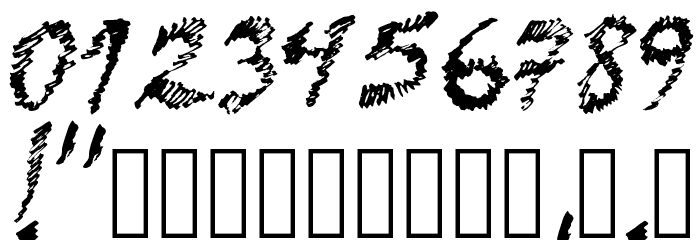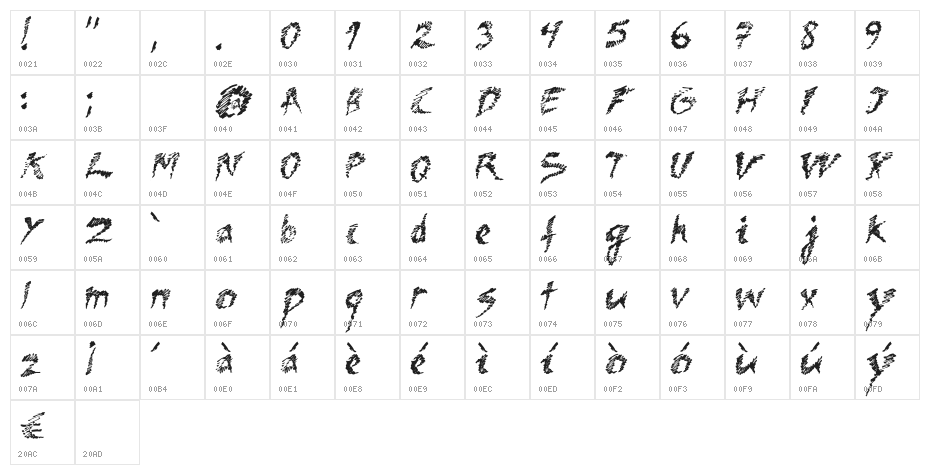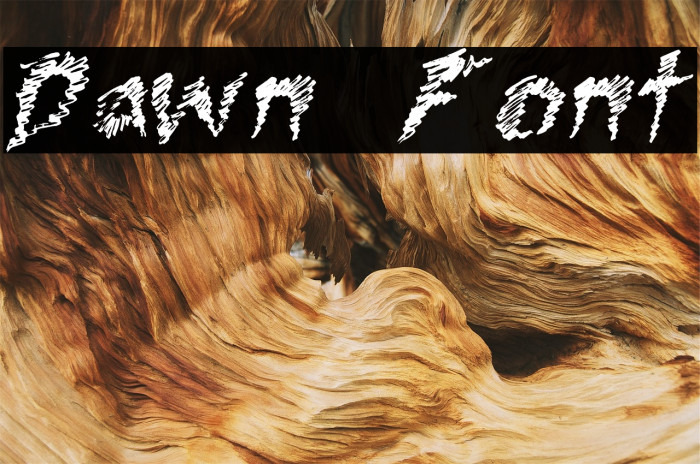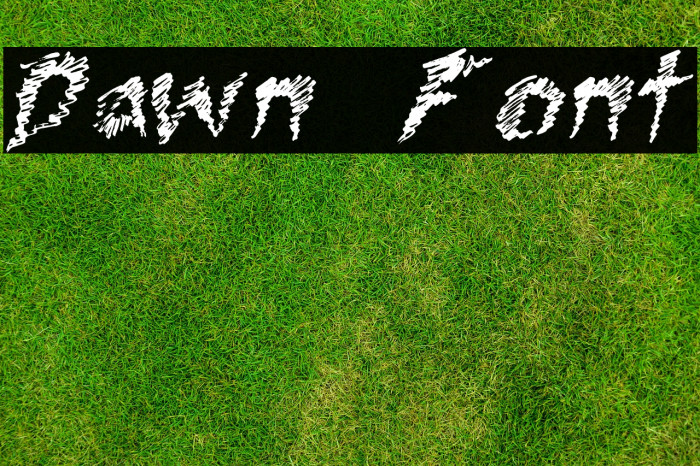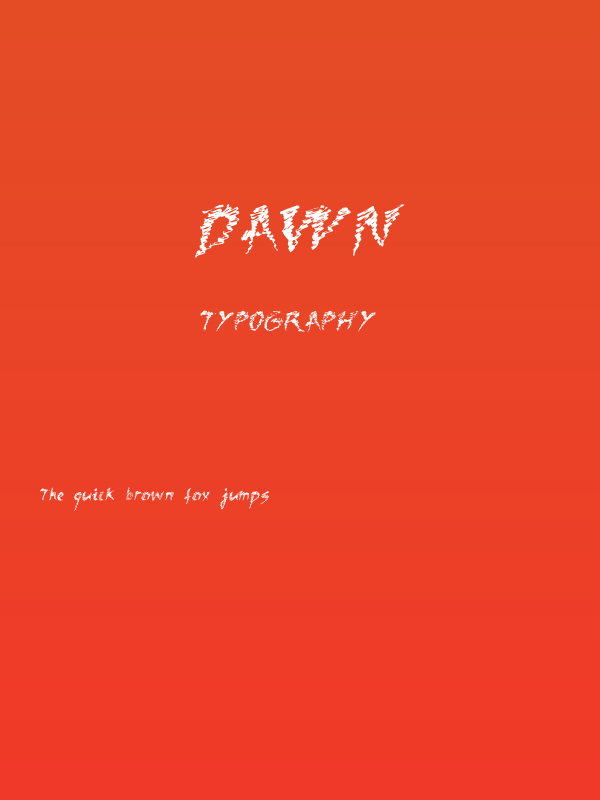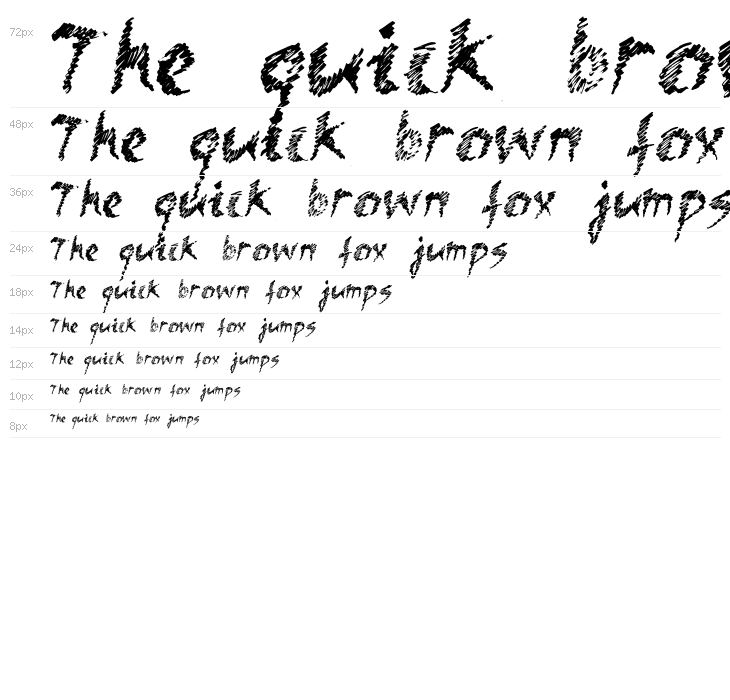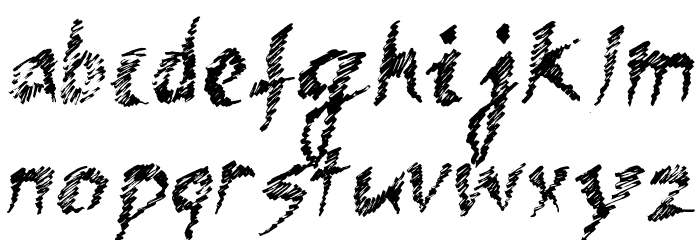
Dawn Font
Dawn Description
This font features a dynamic and energetic style, characterized by its jagged, brush-like strokes that give it a sense of movement and intensity. The letters appear as if they are in motion, with irregular edges and a hand-drawn quality that adds to its unique appeal. The uppercase and lowercase letters maintain a consistent style, with varying thicknesses that create a striking visual contrast. Numbers and special characters follow the same design principles, ensuring a cohesive look across all elements. This font's distinctive appearance makes it stand out, perfect for projects that require a bold and artistic touch.
| Use Case | Headlines, Logos, Artistic projects |
| Proposed Projects | Ideal for album covers, posters, graffiti art, and any project needing an edgy, artistic flair. |